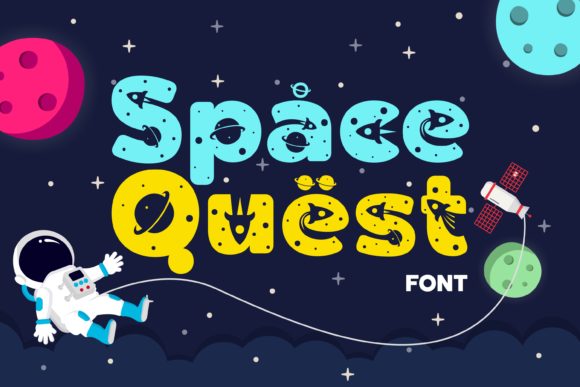
Prepare yourself for a typographic odyssey with Space Quest Font, a display font family that will propel your designs into the stratosphere of creativity! Step into the realm of visual intrigue with Space Quest's bold and chunky letters, meticulously crafted to command attention and add an aura of distinction to your projects.
Ignite your imagination and embark on a journey through the cosmos of design possibilities. Space Quest is not merely a font; it's a vehicle for self-expression, a tool that empowers you to transform ordinary words into captivating celestial bodies. Its unique aesthetic, optimized for negative space, invites you to play with layers and dimensions, creating depth and intrigue that will leave your audience starstruck.
Whether you're crafting eye-catching headlines, stellar logos, or otherworldly posters, Space Quest is your interstellar companion, guiding you through the vast expanse of design possibilities. Its versatility knows no bounds, adapting effortlessly to a myriad of projects, from futuristic website designs to captivating social media posts.
Embrace the allure of the unknown, the thrill of the unexplored, and let Space Quest Font illuminate your creative endeavors with its radiant brilliance. Stand out in the digital universe, defy expectations, and leave an indelible mark on the minds of your audience. Space Quest is not just a font; it's a gateway to a universe of limitless design potential.